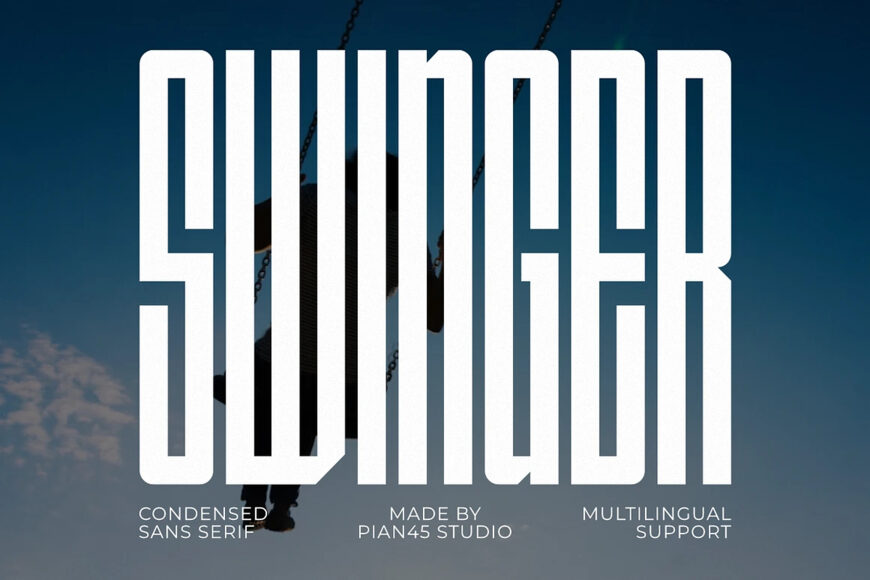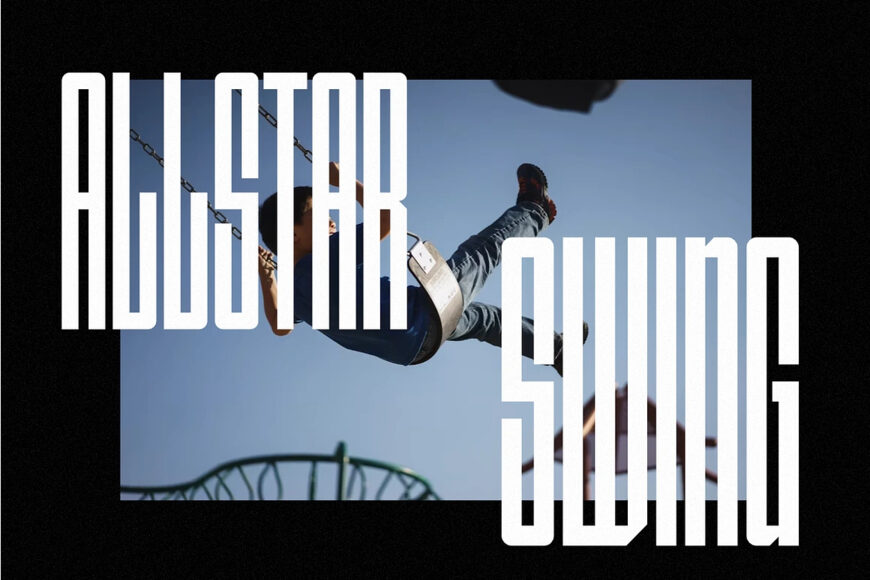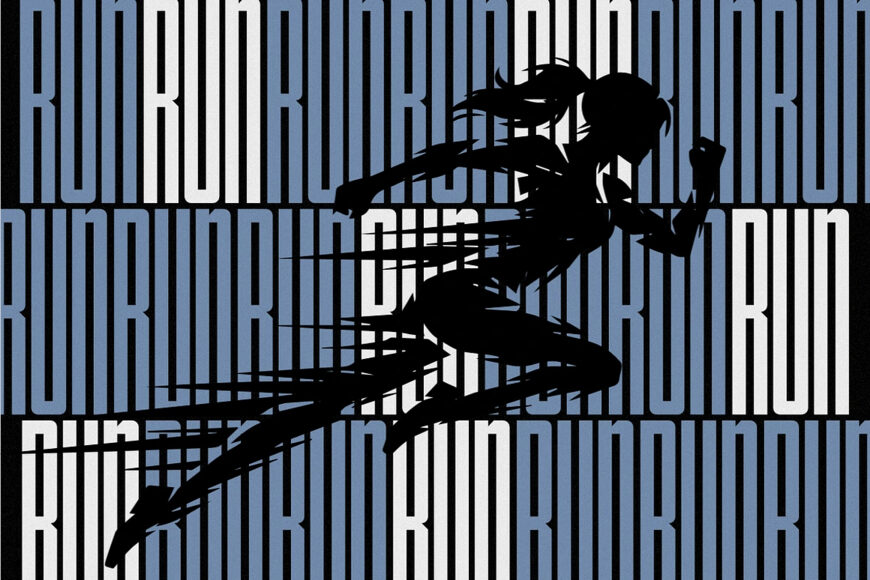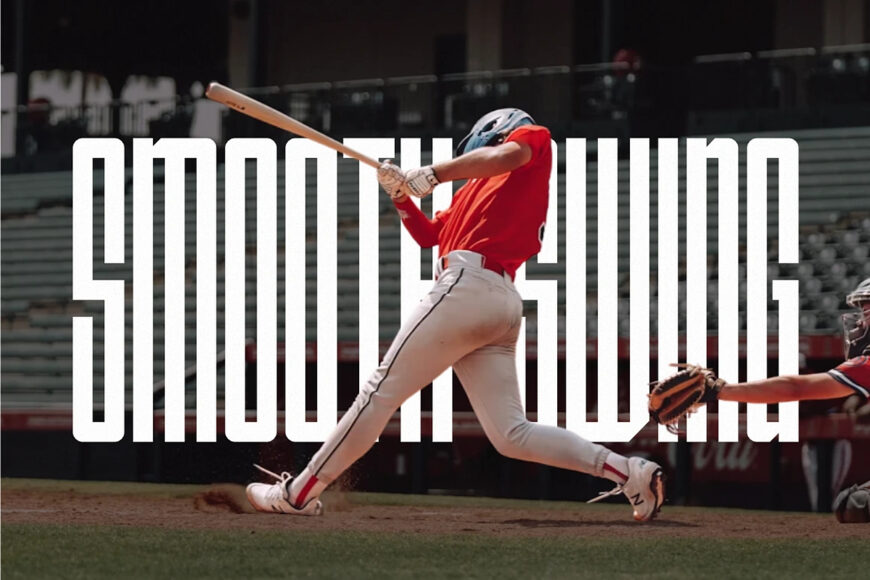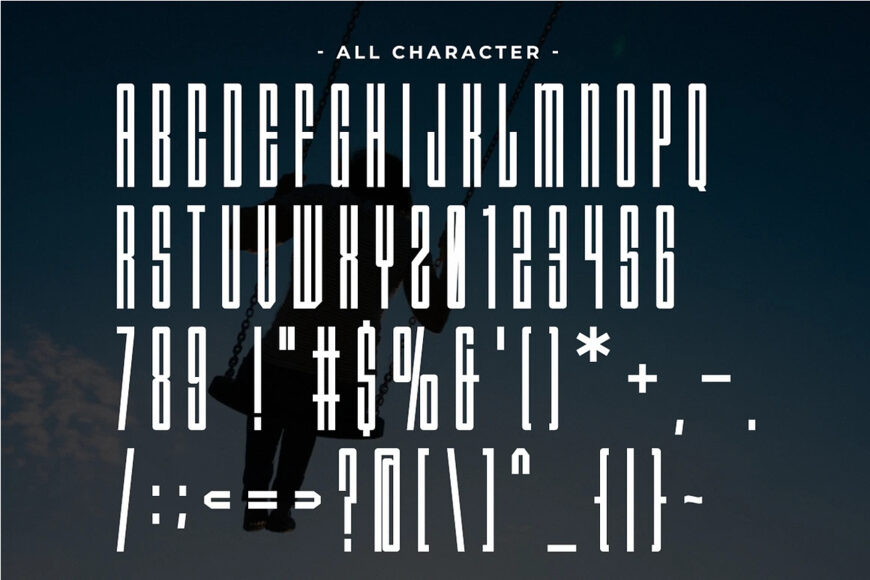
Swinger Font
Swinger is a dynamic and high-impact Modern Condensed Sans Serif font designed to bring movement and sophisticated rhythm to your layouts. Featuring ultra-tall vertical structures, precise geometric angles, and a solid blocky silhouette, this all-caps typeface is built for minimalist branding, modern streetwear lines, athletic logos, and cinematic title designs.
Its space-saving design ensures excellent legibility in narrow spaces, making it an ideal choice for commanding headlines, festival posters, sports apparel, and high-visibility digital marketing graphics.